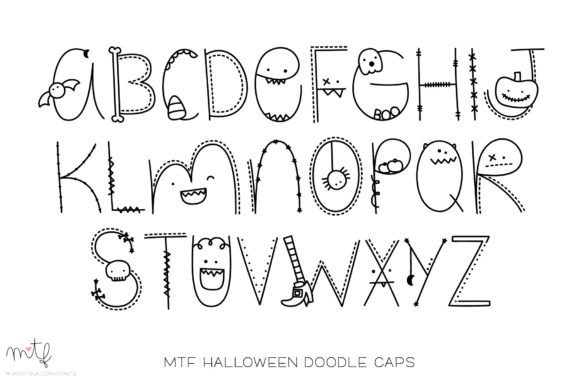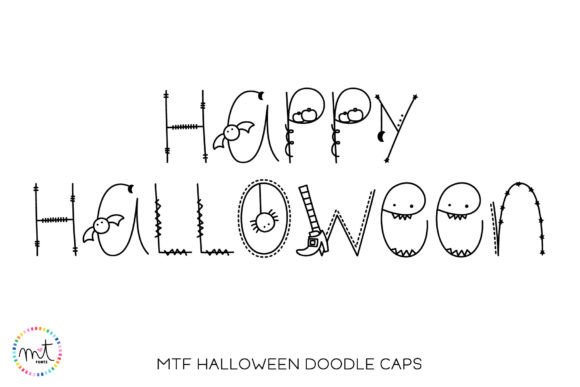
Introduction to Halloween Doodle Caps Font
Halloween Doodle Caps is an all caps doodle font, it’s perfect for spooky cute Halloween projects.
Halloween Doodle Caps is an all caps doodle font, it’s perfect for spooky cute Halloween projects!
Why Choose Halloween Doodle Caps Font?
Halloween Doodle Caps Font offers exceptional quality and versatility, making it a valuable addition to your design toolkit. Whether you’re creating for personal projects or commercial use, Halloween Doodle Caps Font delivers professional results.